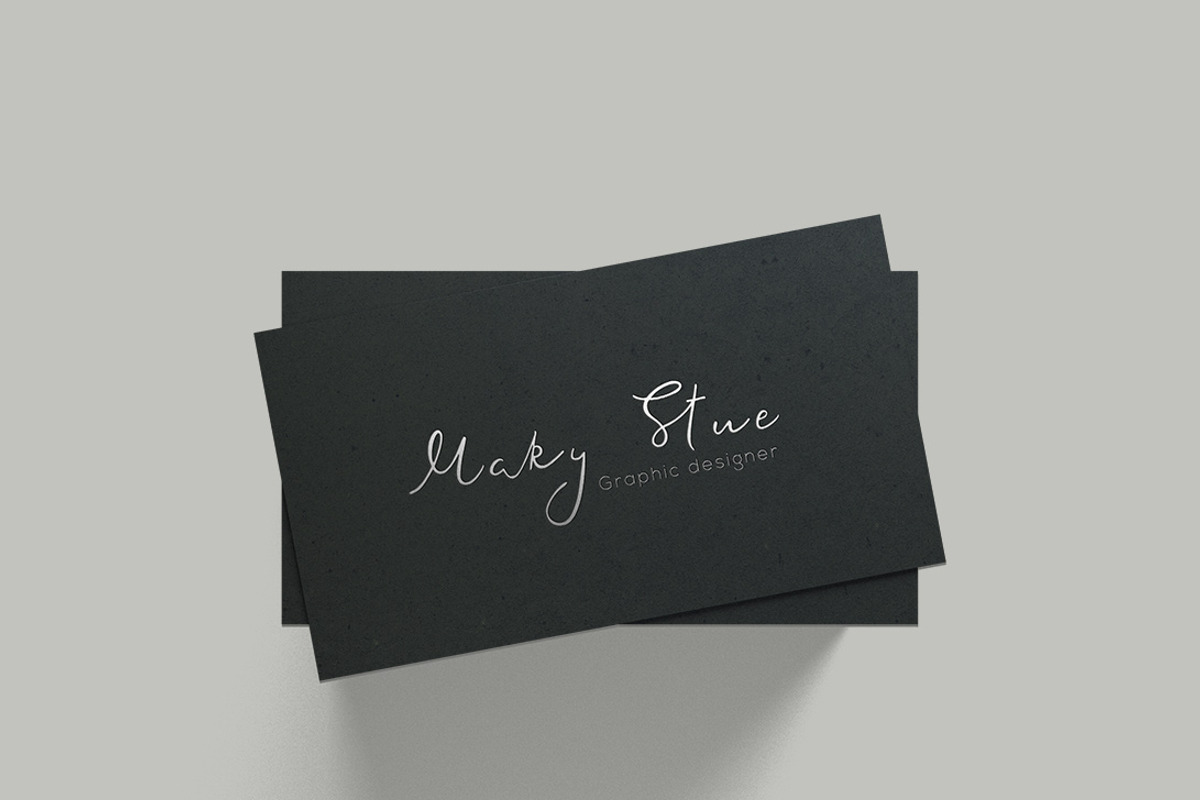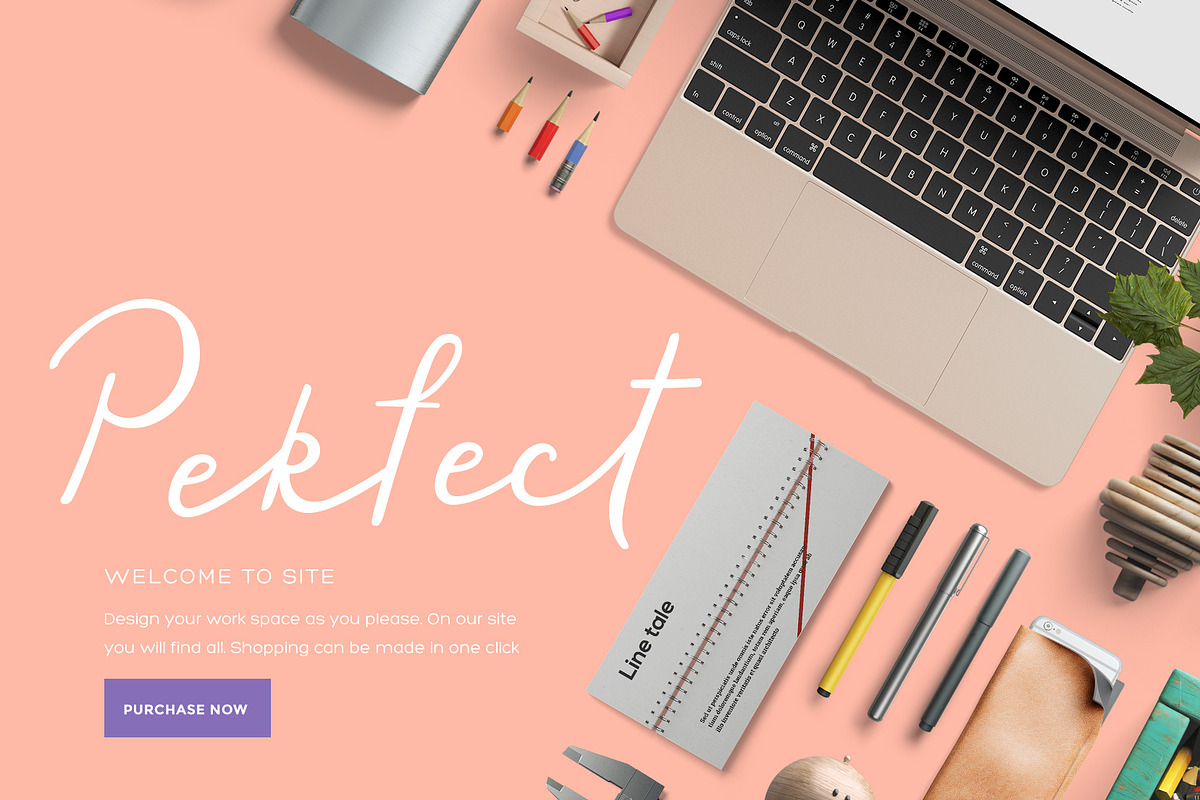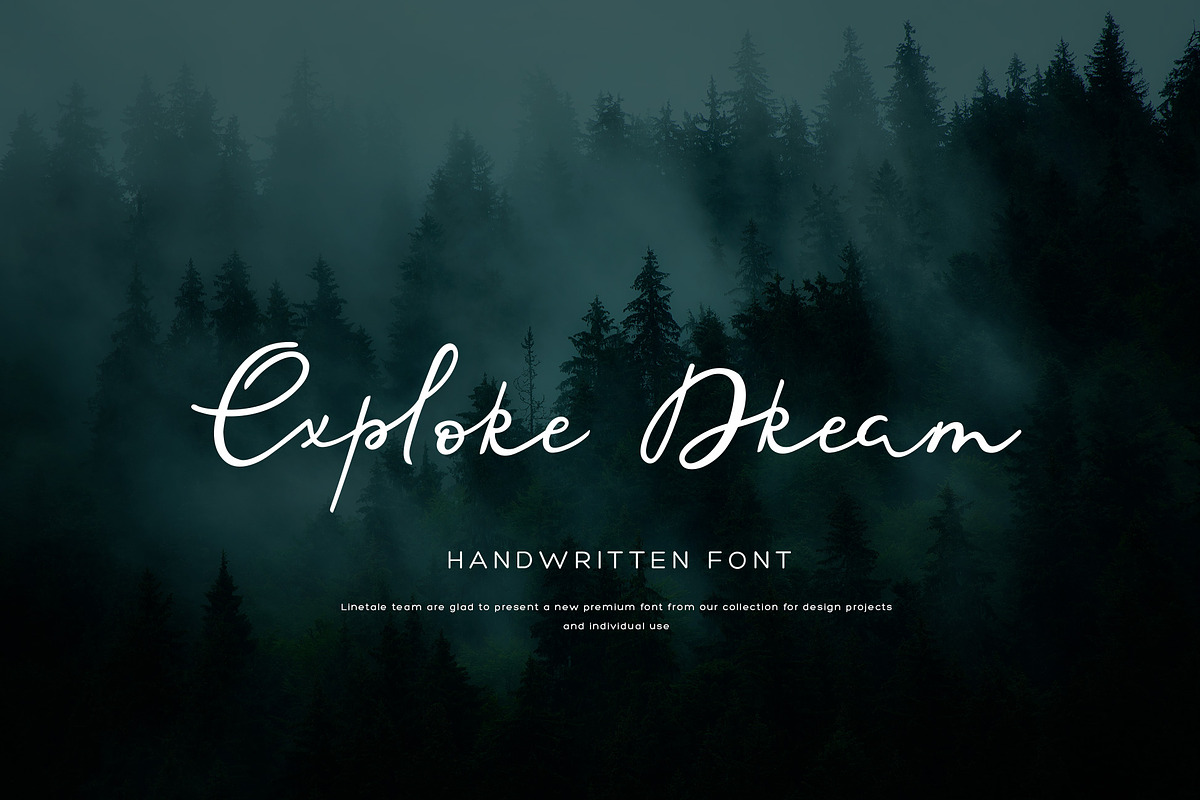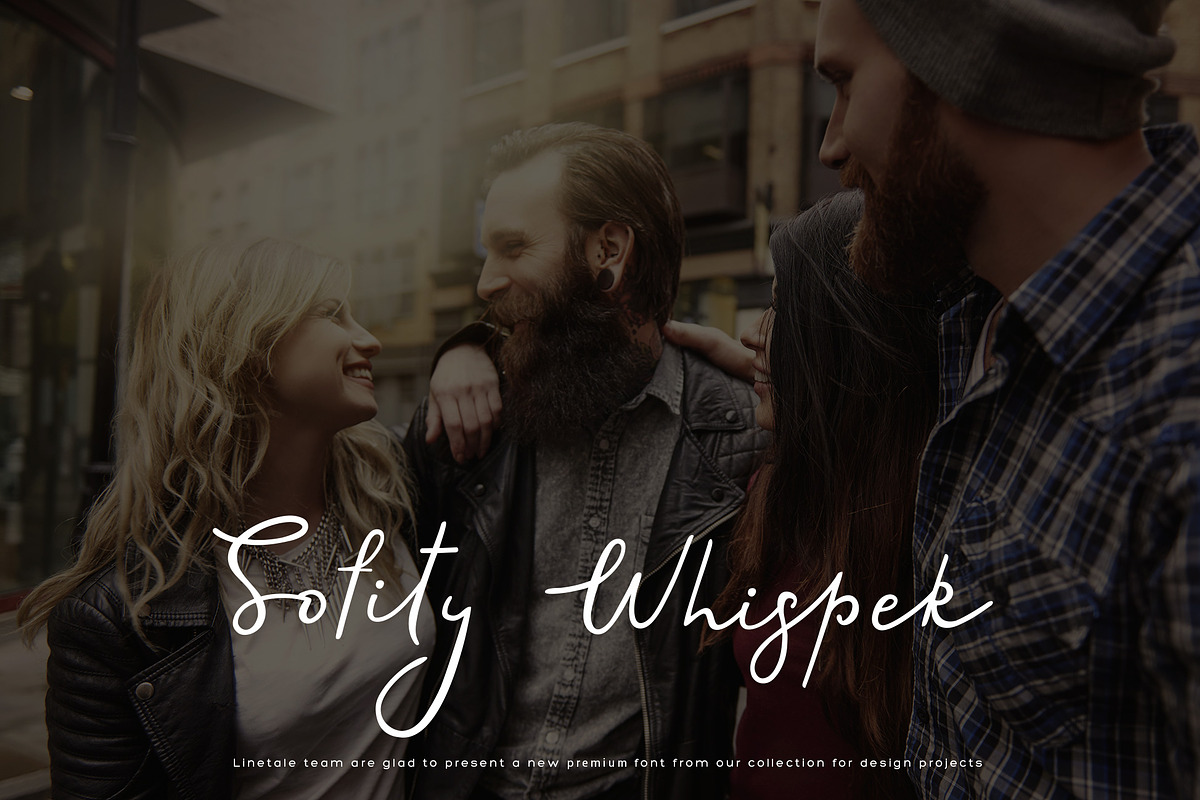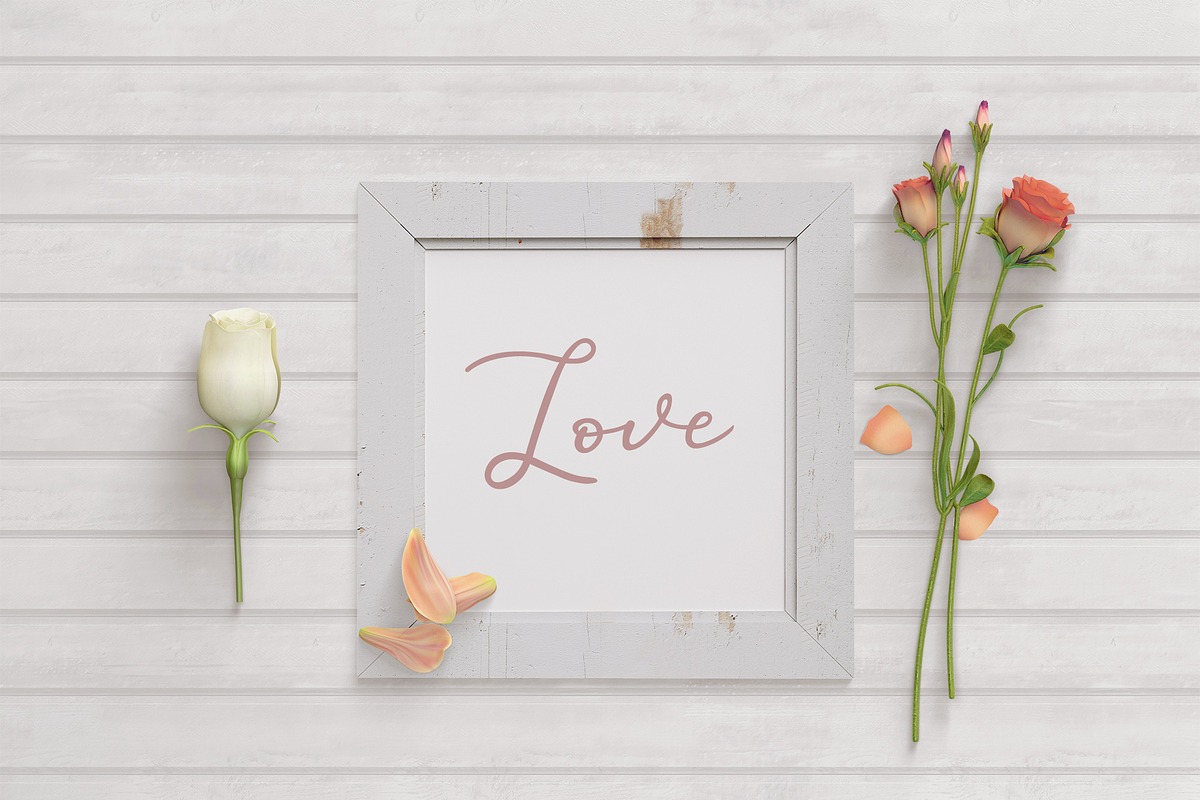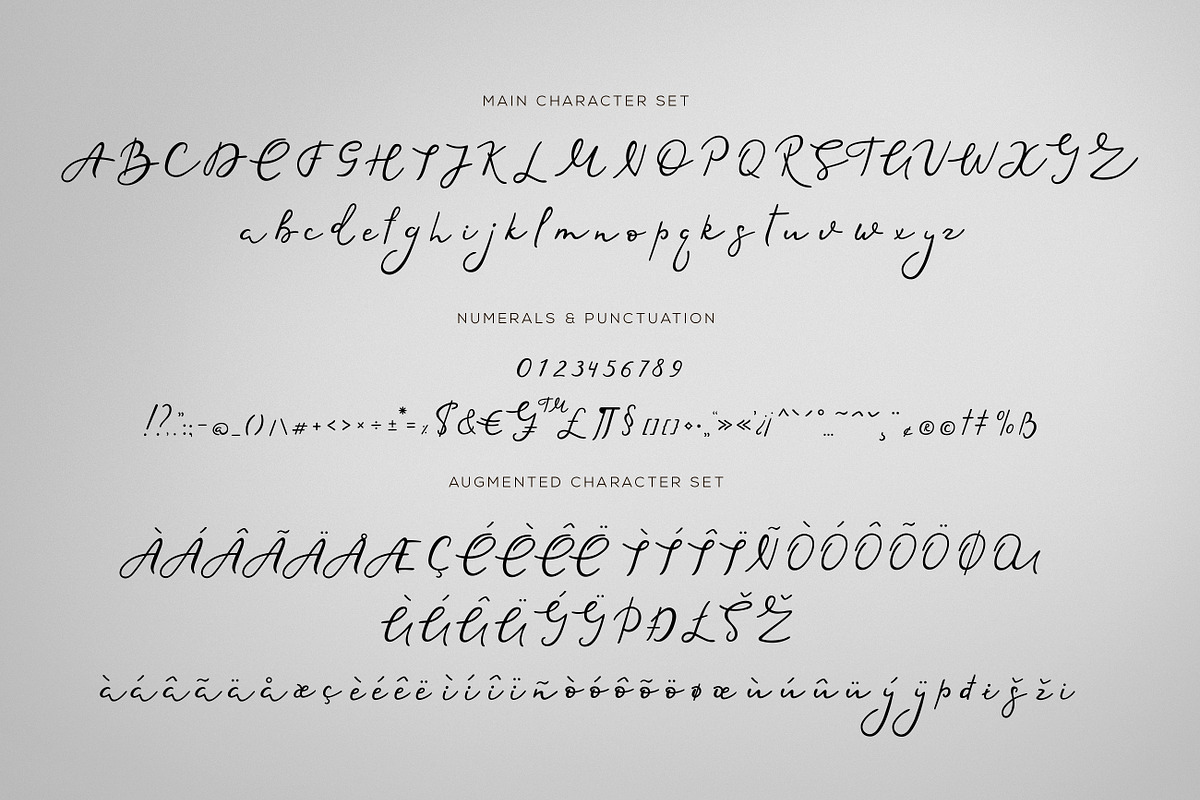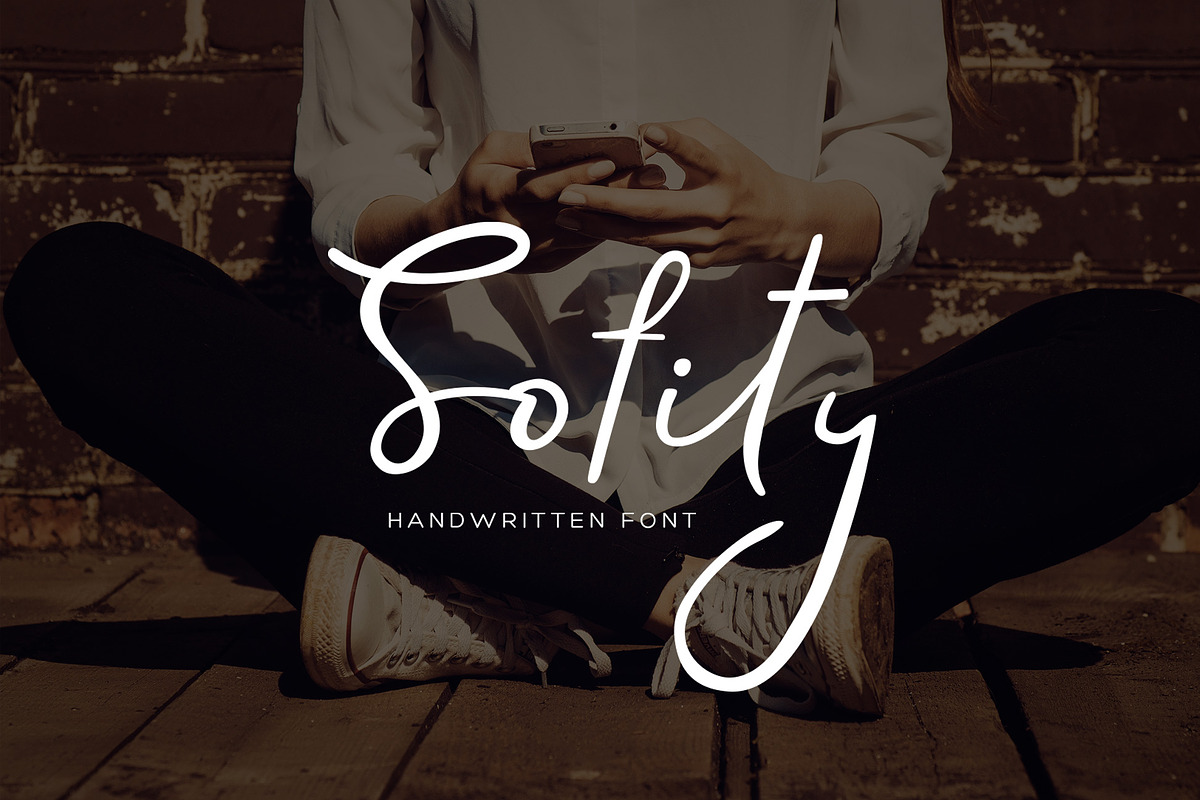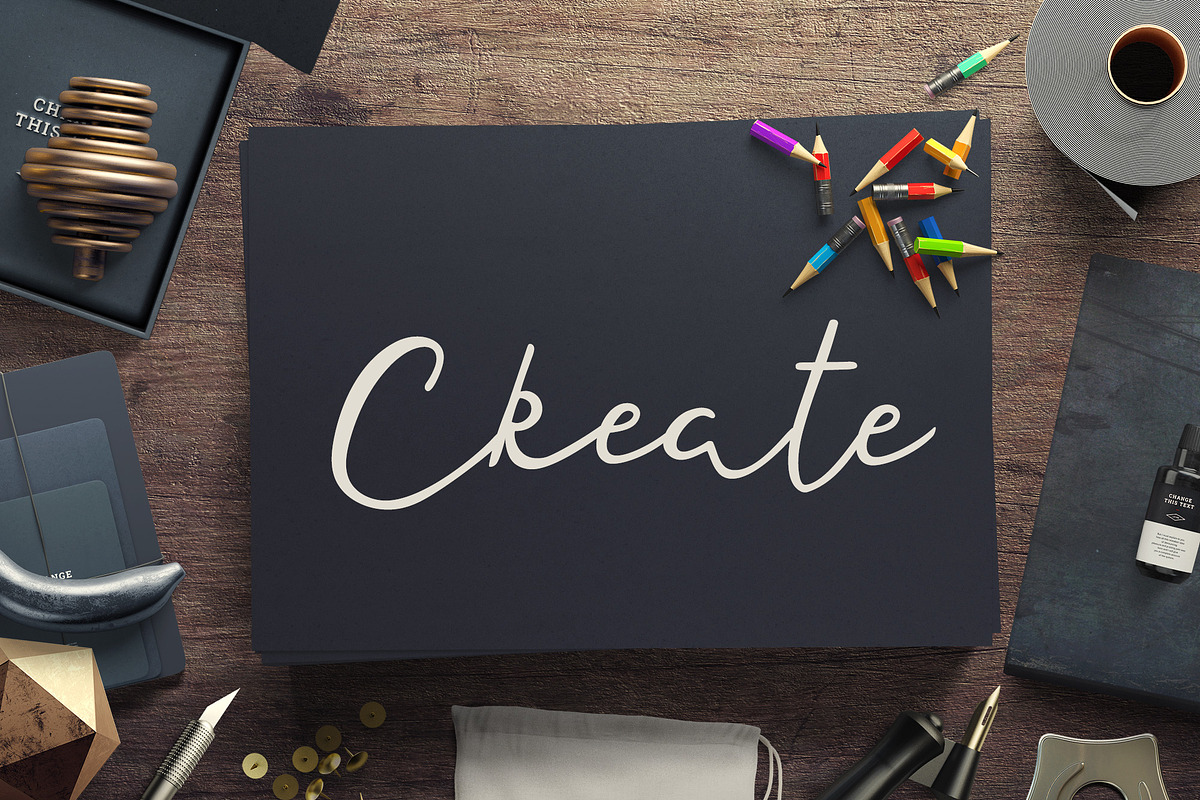
Sofity script font
One of our favorite premium fonts. Contrast letters are combined with moderate ones. We wanted to create something between bright contrasts and tranquility. We created it not only for branding but also for making your text outstanding in any invitation cards, product packages, interesting logos, printed quotes, headers and whatever your want. The font was created with great attention. It includes more than 700 ligatures, to give the text more smooth blending.
2. Fonts include multilingual support. German, Cornish, English, Italian, French, Estonian, Filipino, Finnish, Galician, Gusii, Icelandic, Indonesian, Danish, Irish, Kalenjin, Kinyarwanda, Norwegian, Portuguese, Romansh, Spanish, Swedish, Swiss German.
- We created it not only for branding but also for making your text outstanding in any invitation cards, product packages, interesting logos,
- It includes more than 700 ligatures, to give the text more smooth blending.
- We created it not only for branding but also for making your text outstanding in any invitation cards, product packages, interesting logos,
- It includes more than 700 ligatures, to give the text more smooth blending.
- Fonts include multilingual support.
Why Sofity script font is worth a look
Sofity script font by LineTale fits naturally into Branding, posters, packaging, typography.